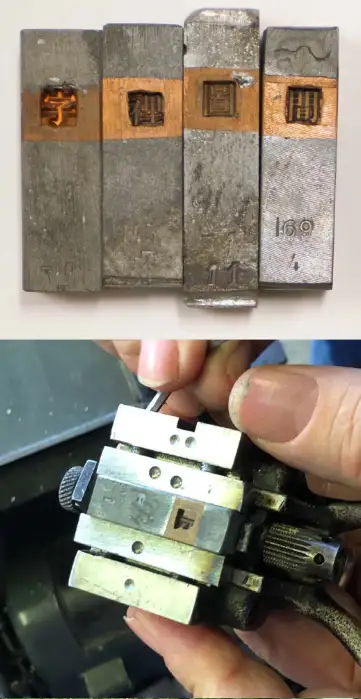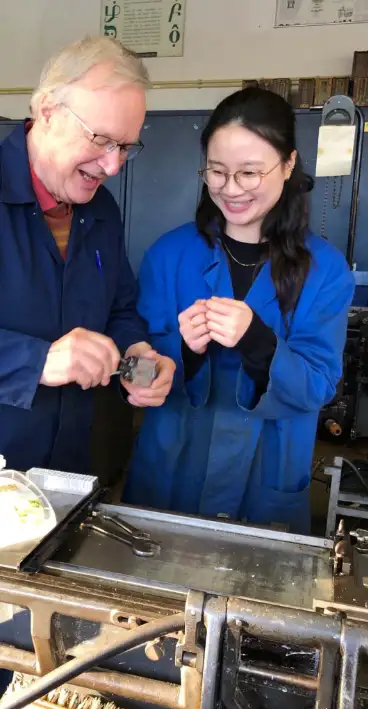
Text of presentation given by Ronald Steur, former Chairman of the Foundation Type Foundry Westzaan, on February 22, 2025.
The quest for the Chinese printing types that were used for more than a century in the Netherlands began with a simple question in 2015: Do the matrices still exist and if so, where are they now? The answer is: the matrices still exist and are housed in the depot of the Wereldmuseum in Leiden.
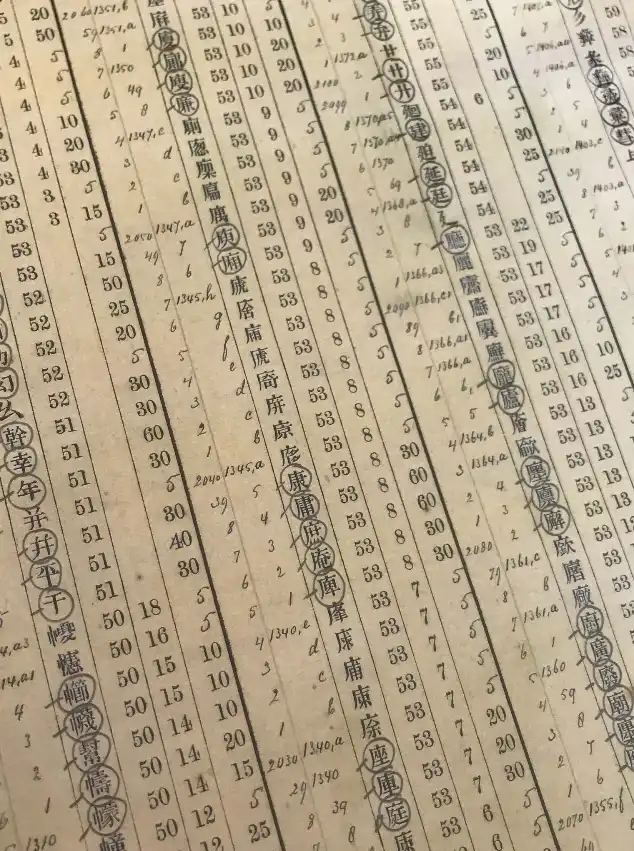
1 – Historical overview
I will begin by providing a historical context of how and why the Chinese matrices and types ended up in the Netherlands.
In the middle of the 19th century the need for improving the communication with the Chinese population in the Dutch East Indies (modern day Indonesia) was felt and the Dutch Governor asked to educate translators. It was Prof. Hoffman who got the task to start the Sinology Department at Leiden University.
After a extensive survey he ordered more than 5000 types in Hong Kong. After the arrival of the HK collection in 1859, the Sijthof printing house made a printed specimen of these types, the ‘Proef druk’. To use these HK types Tetterode electro copied them and made matrices for the production of type. For these and for expanding the collection the Minister for the Colonies provided 12,000 Guilders. The collection grew to around 9000 types in 1875. At the time, it was the most complete collection of Chinese types in Europe.
In 1875, Brill Publishing House bought an exclusive license for the right of use. In the official act it was stated that (1) the Dutch government was the owner of the Staatsverzameling Chinese Matrijzen en Tekens (National Collection of Chinese Matrices and Signs), that (2) Tetterode would store the matrices and a set of types, that (3) the Ministry paid for the insurance and (4) that Tetterode could sell the type abroad with consent of the government.
Although the agreement was clear and signed by Brill, Tetterode and the government, in 1929 the acting Sinology Professor in Leiden was assigned the task to describe the situation regarding the Chinese matrices and types anew. And in 1979 and 1981, there were renewed inquiries about the type. All this information is available in the Tetterode Archive (part of the collections of the Allard Pierson Museum of the University of Amsterdam), the National Archives and the records of the Royal Academy of Sciences. In addition to these sources, I consulted numerous, mainly retired employees of Tetterode. I learned a lot during this research:
especially that not everything you are told or find in documents is true. And also that more research should be done: I came across a letter from 1875 of the Dutch Ambassador in the USA to the American Minister of Trade, offering the Dutch collection of Chinese types. The communication between Tetterode and prof. Hoffman also reveals a lot about how Prof. Hoffman expanded the collection.
The publishing house Brill was the main user of the Chinese type collection and also printed for foreign publishers. In 1965, the type was used for the last time. The Brill printing department closed down in 1979 and the types were disposed of.
But after all this research, the matrices were not yet found. The very moment I intended to give up my quest into the past, I received some letters that should have been part of the Tetterode Archive. In 2019, they surfaced when a retired manager cleaned up his personal library. A folder from the Tetterode Archive with the title ‘China’ was discovered. This revealed a discussion in 1981 with the government about the ownership of the type and where the matrices and types should be stored. The Ministry of the Interior and Kingdom Relations ordered that the matrices and the types should be delivered to the Wereldmuseum in Leiden. A month later, the matrices were discovered between gamalans and Balinese temples, in the external warehouse of the museum. The type, kept by Tetterode for more than a century, unfortunately has not been found. Time to go to the Type Foundry Westzaan and Hong Kong.
2 The recasting of the Hong Kong types
In 2018, I participated in a conference in Korea organised by the International Association of Printing Museums. There I met Ms. Yung Sau Mui and learned about the ‘Legend of the Hong Kong types’.
Reading the dissertation of Ching Su (1996) I understood how the Hong Kong Types were developed by missionaries and played a crucial role in the development of Chinese Printing.
Ms. Jung expressed great interest in my search for the matrices and we kept in close touch. She was preparing the exhibition ‘Between the Lines’ around the Hong Types and welcomed the recasting of the original Hong Kong types.
After my first visit to the warehouse of the Wereldmuseum I did some experiments with a single matrix in the Type Foundry in Westzaan. Some practical problems had to be solved. Our Monotype Supercaster was not designed for the 19th century matrices. But with some adaptation of the matrix holder we managed to recast one of the Hong Kong types.